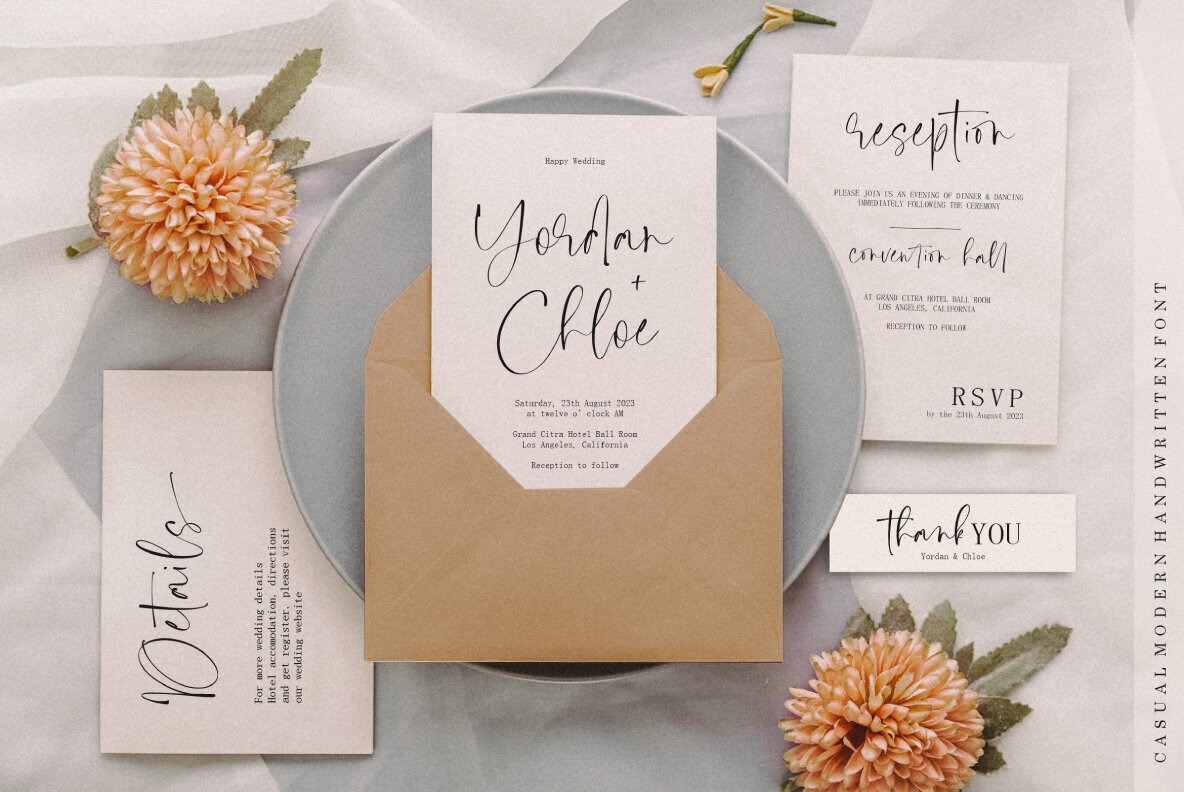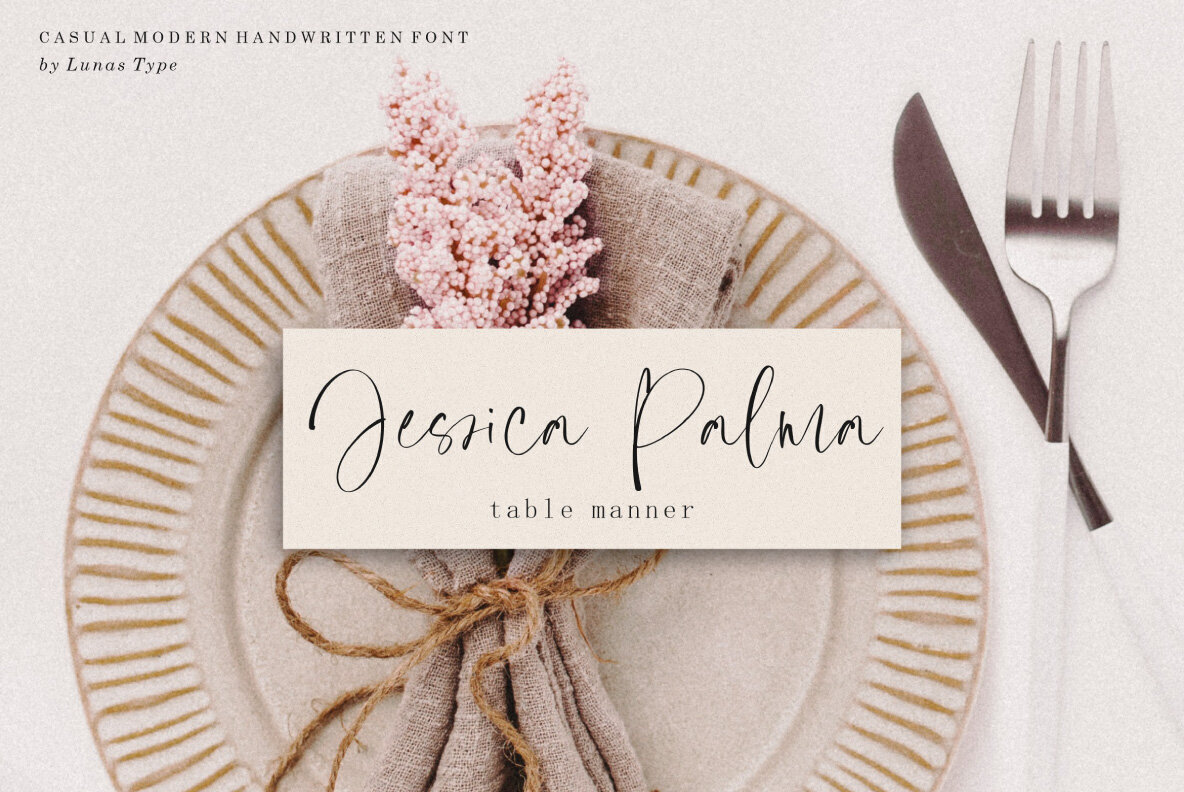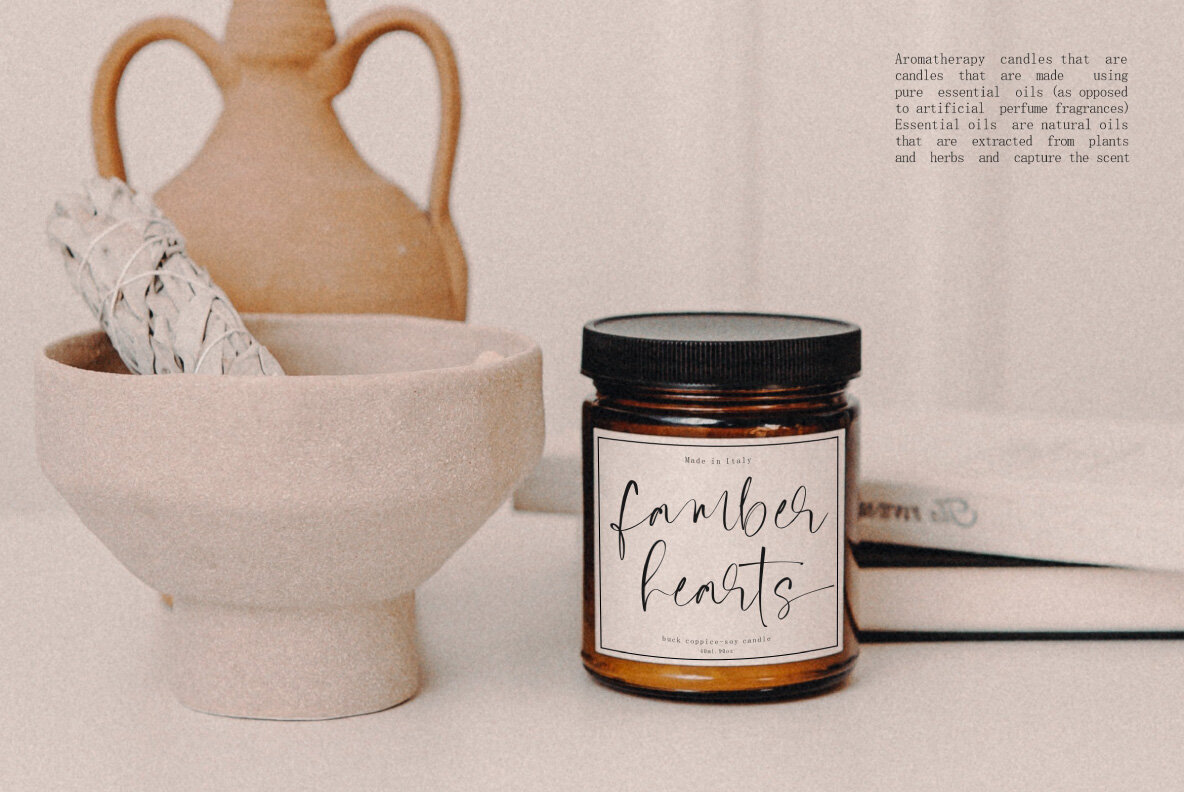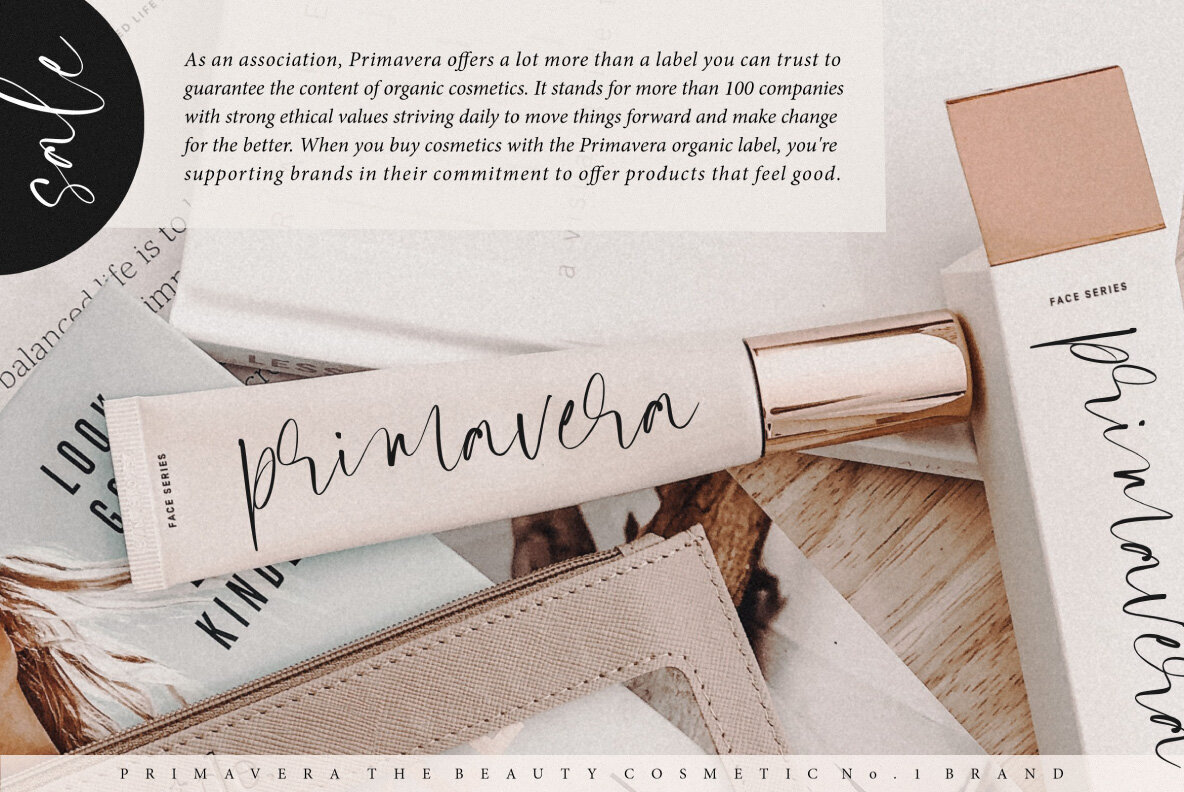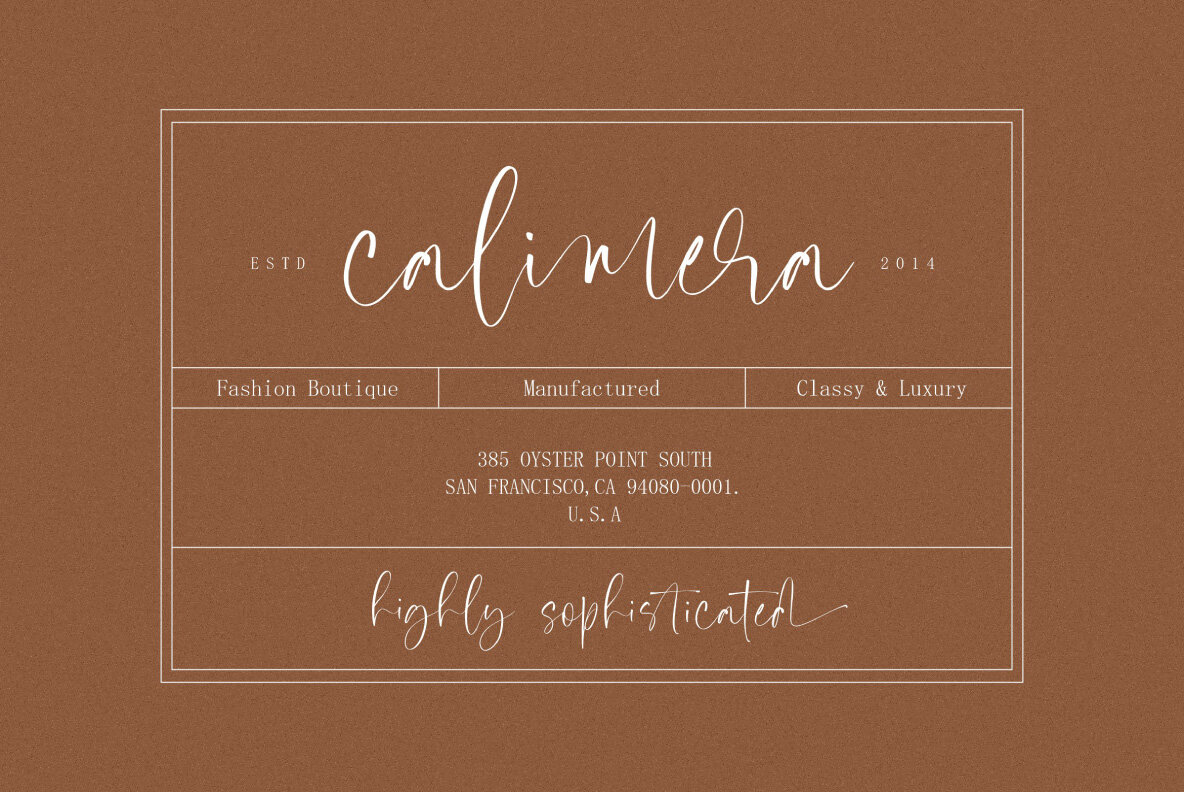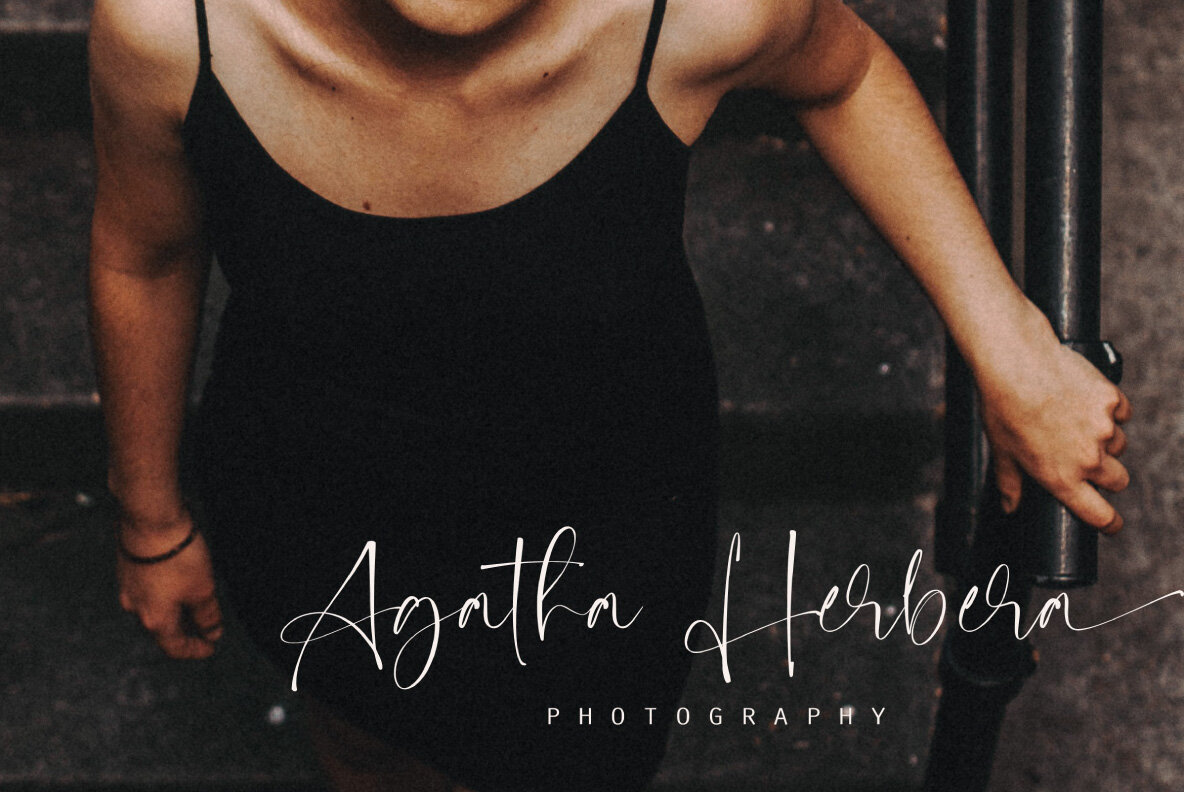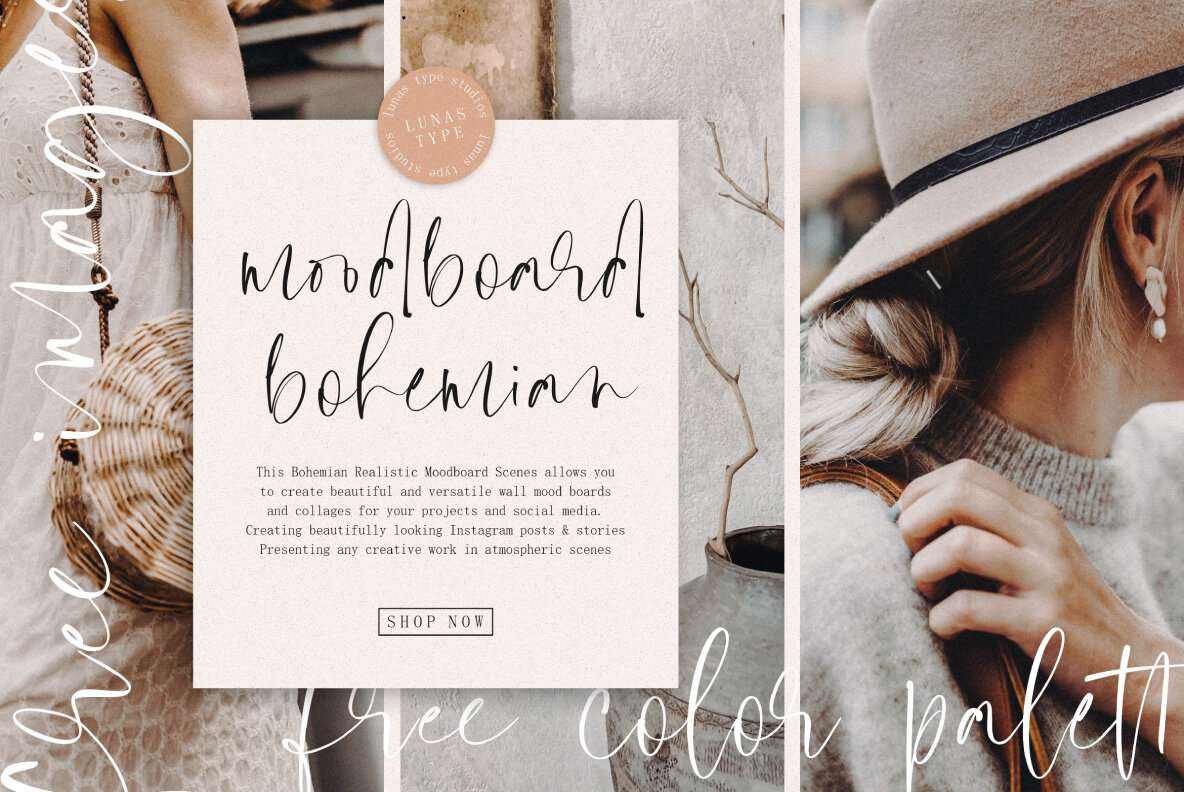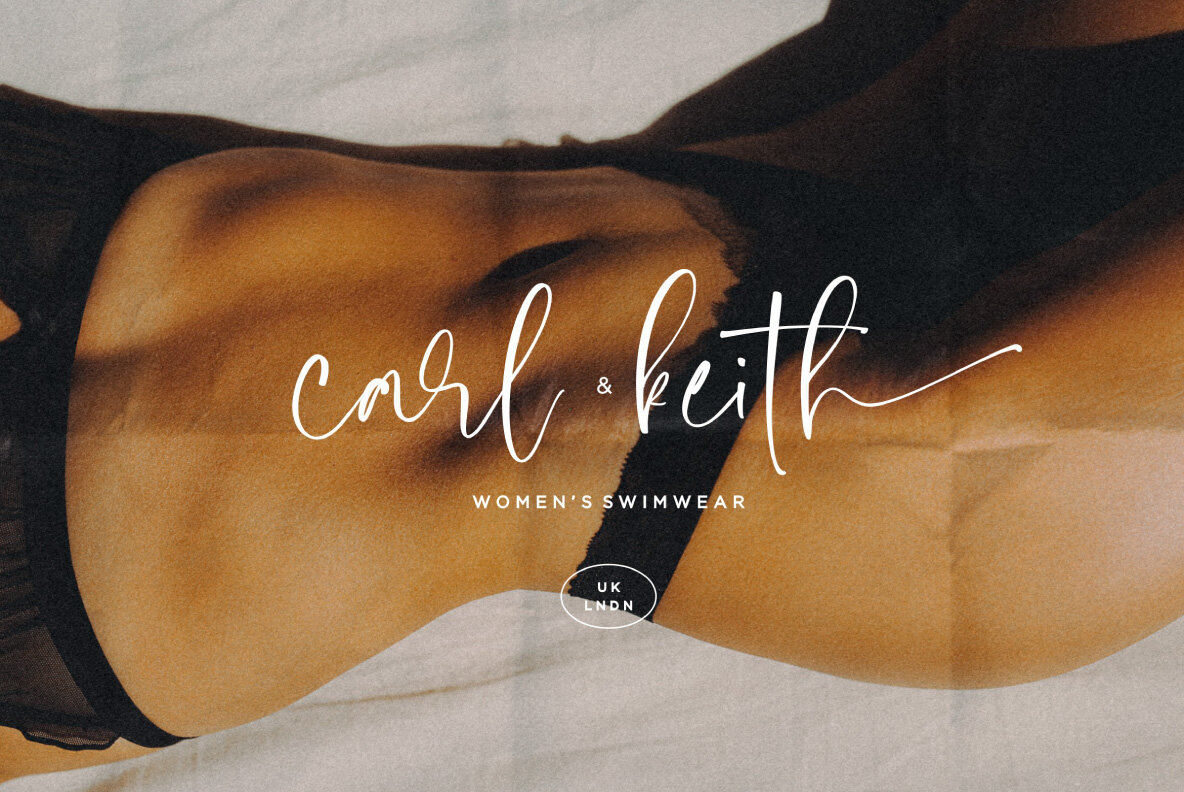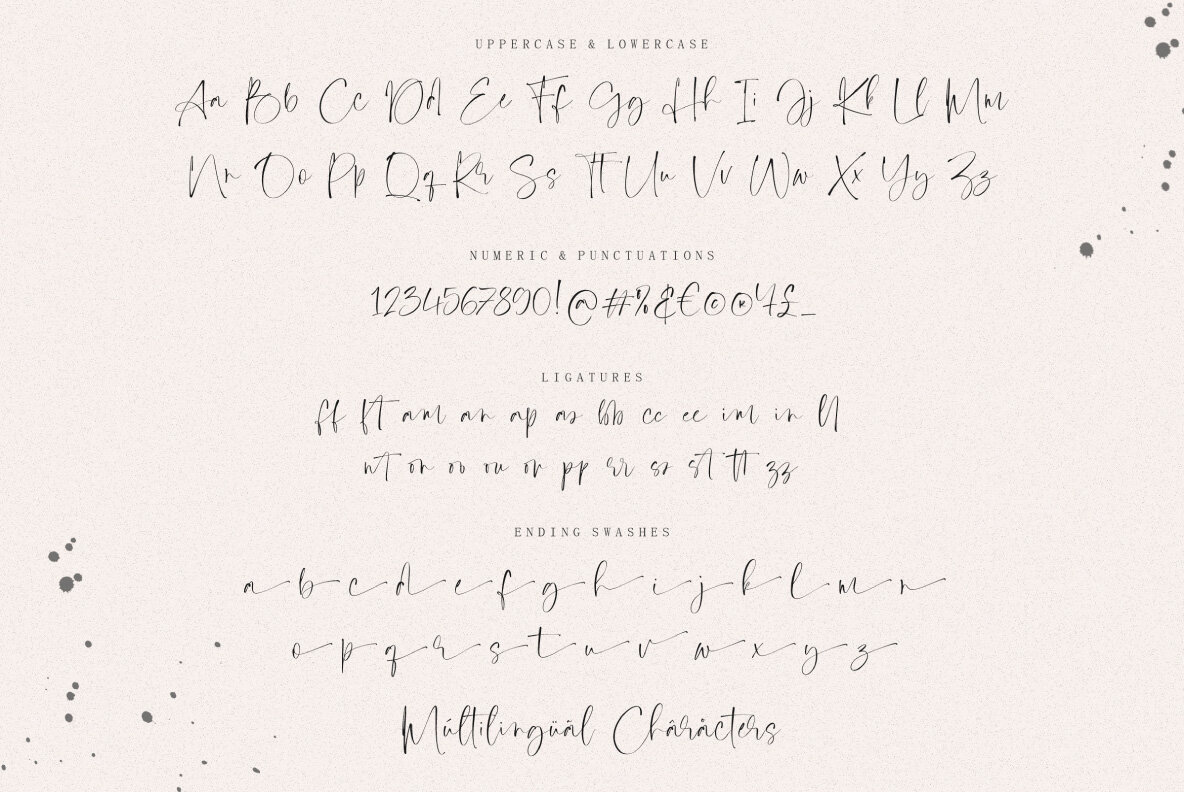
Capaldi Font
Capaldi Regular
What's more charming than a handmade script? The answer is Capaldi. This casual and modern font come with lots of ligatures and ending swashes that will make your text look more expressively gorgeous! This fashionable yet classic style really gets across those important messages without being too overbearing.
- Ending Swashes
- ligatures.